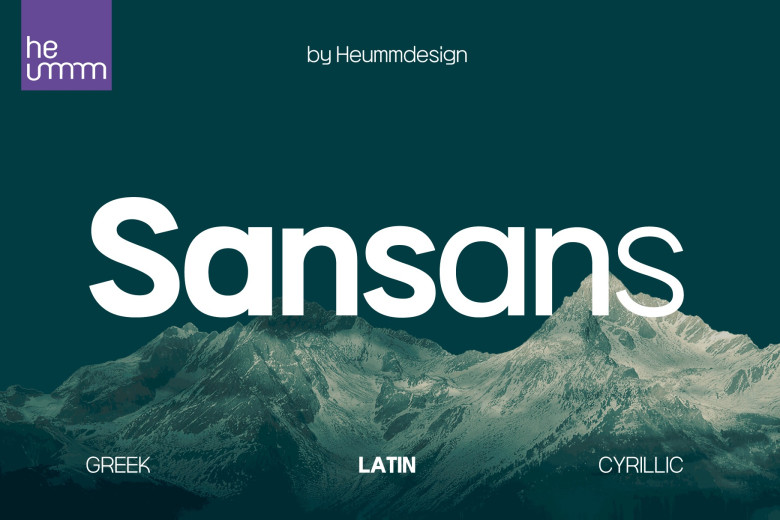
Hu Sansans Font
HU Sansans is a modern, clean sans-serif font that gives your work a crisp and up-to-the-minute look. With its simple lines and open designs, you can use it for any type of graphic application. The simplicity of its style will bring a certain elegance to all of your layouts.
Hu Sansans Sans Serif Font